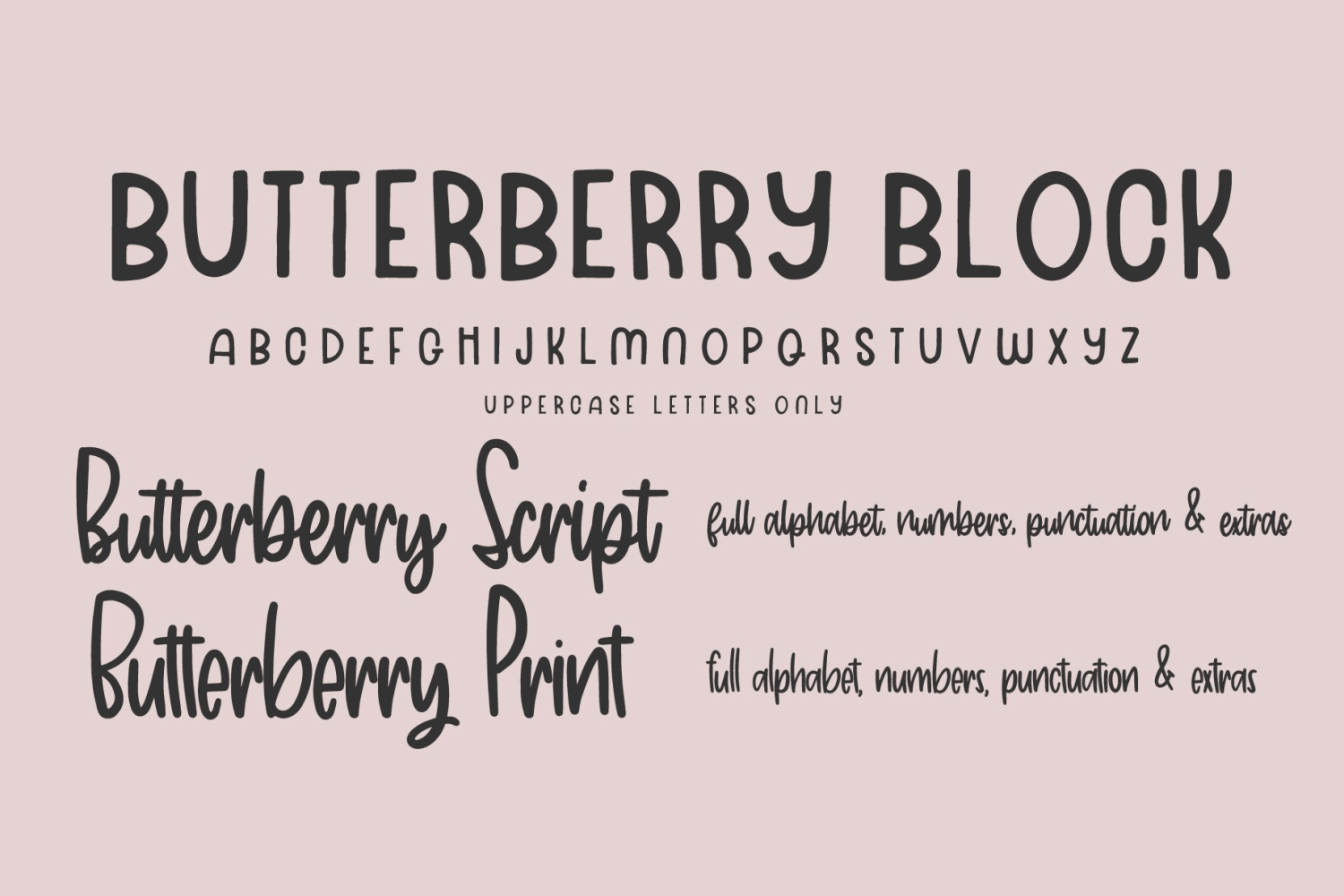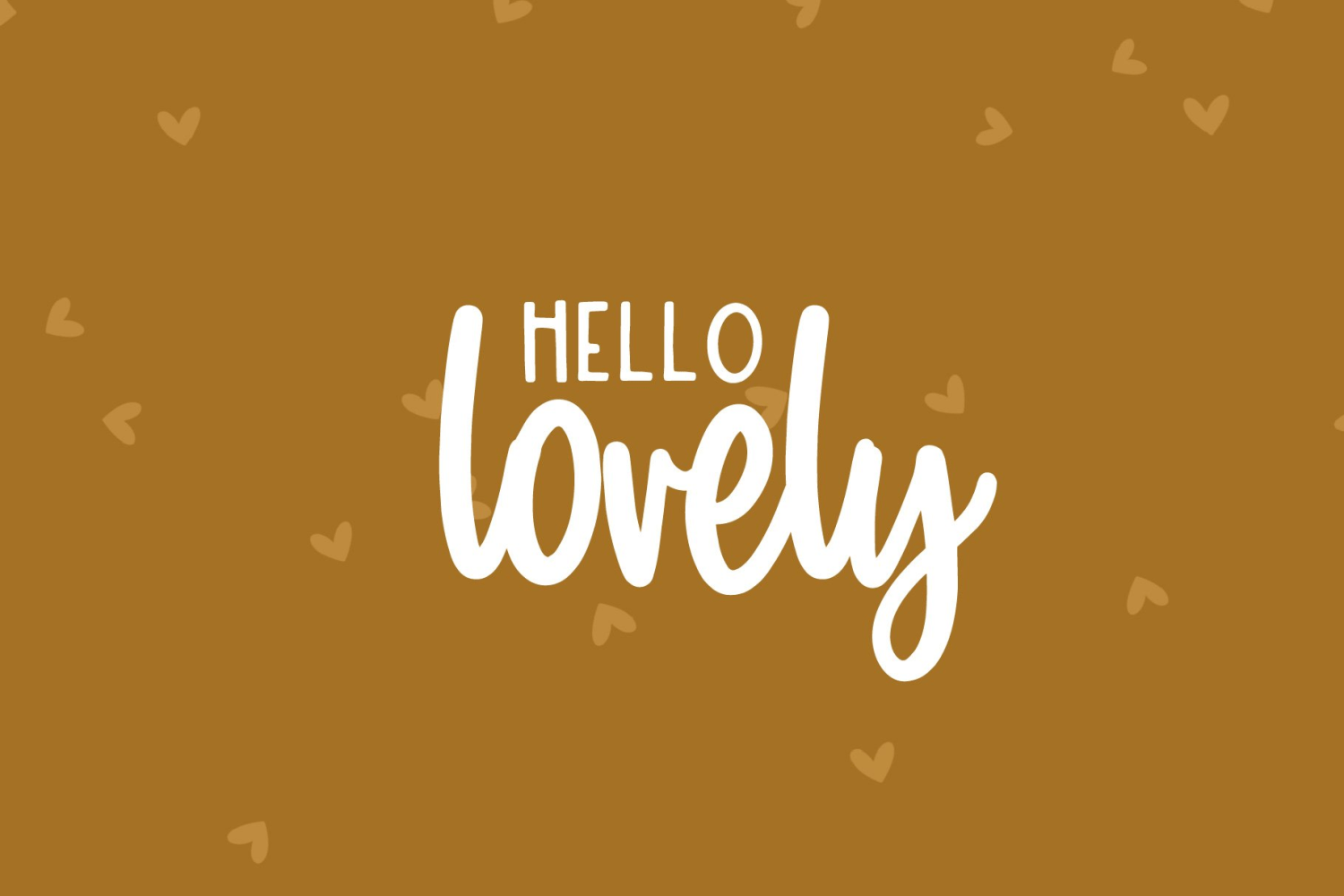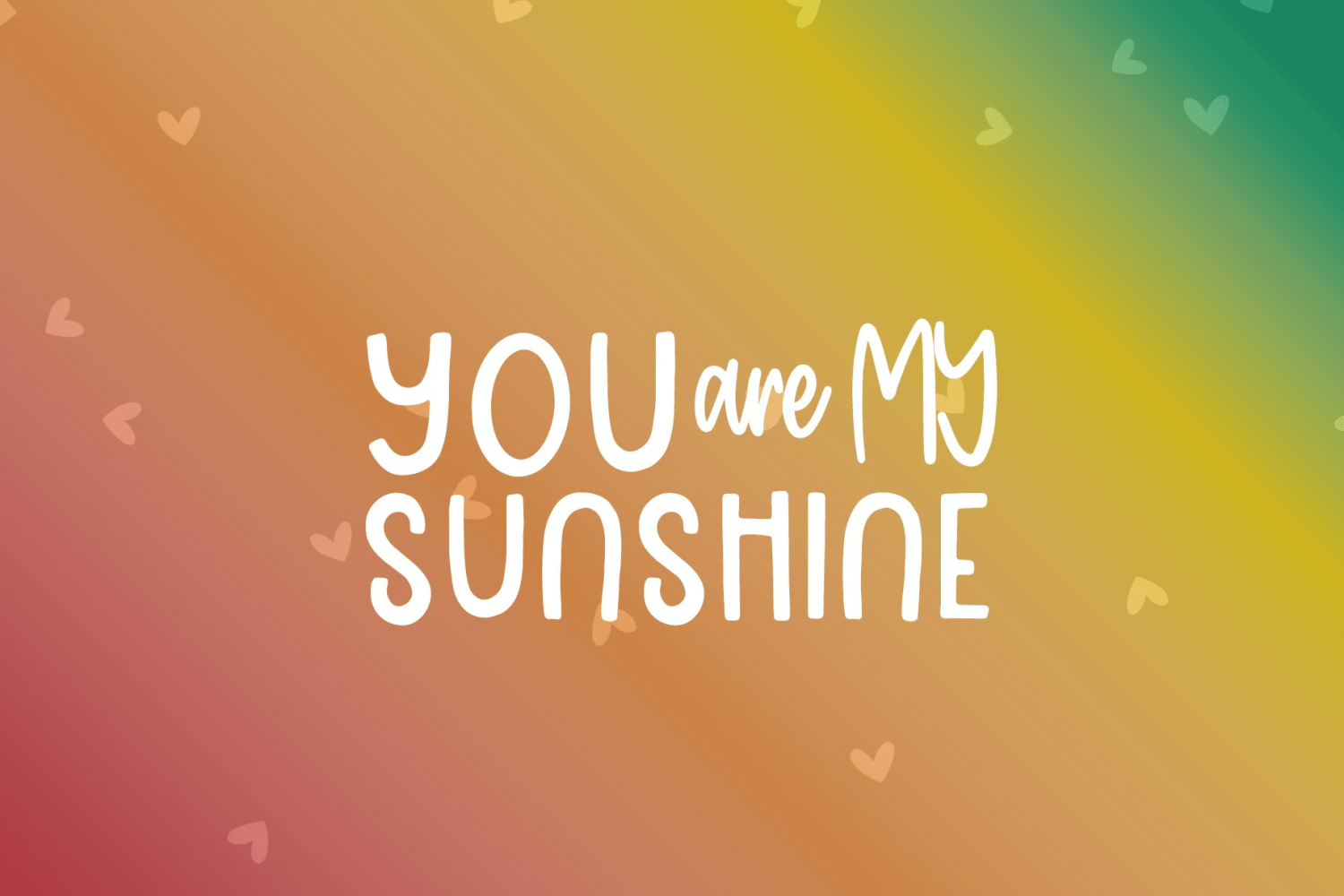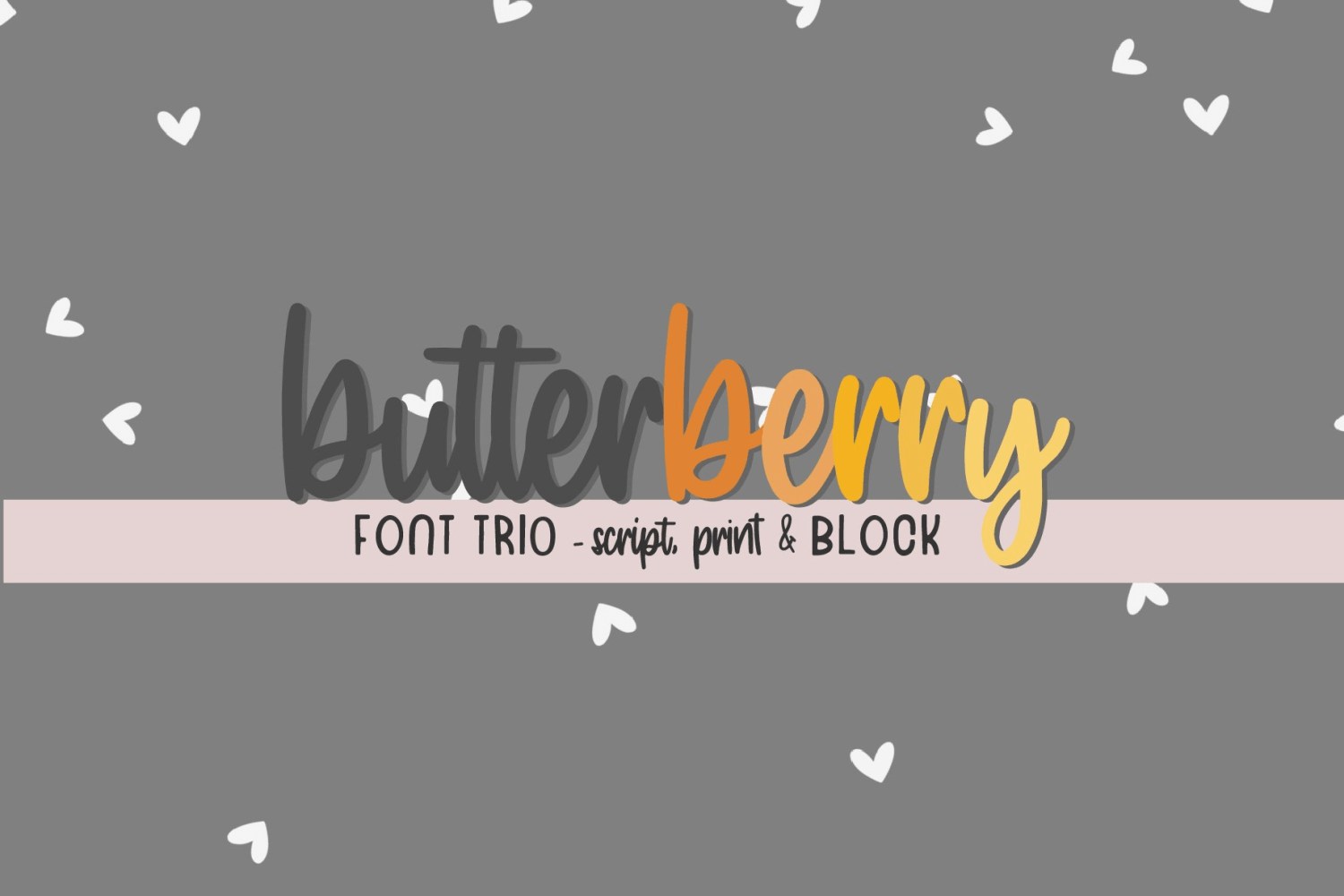
Butterberry Font Trio
About Butterberry Font Trio
The Butterberry font trio includes three unique fonts hand lettered with creativity in mind. Butteryberry Block is an all caps font including only uppercase letters. Butterberry Script is a full script complete with alphabet, numbers, punctuation, and…